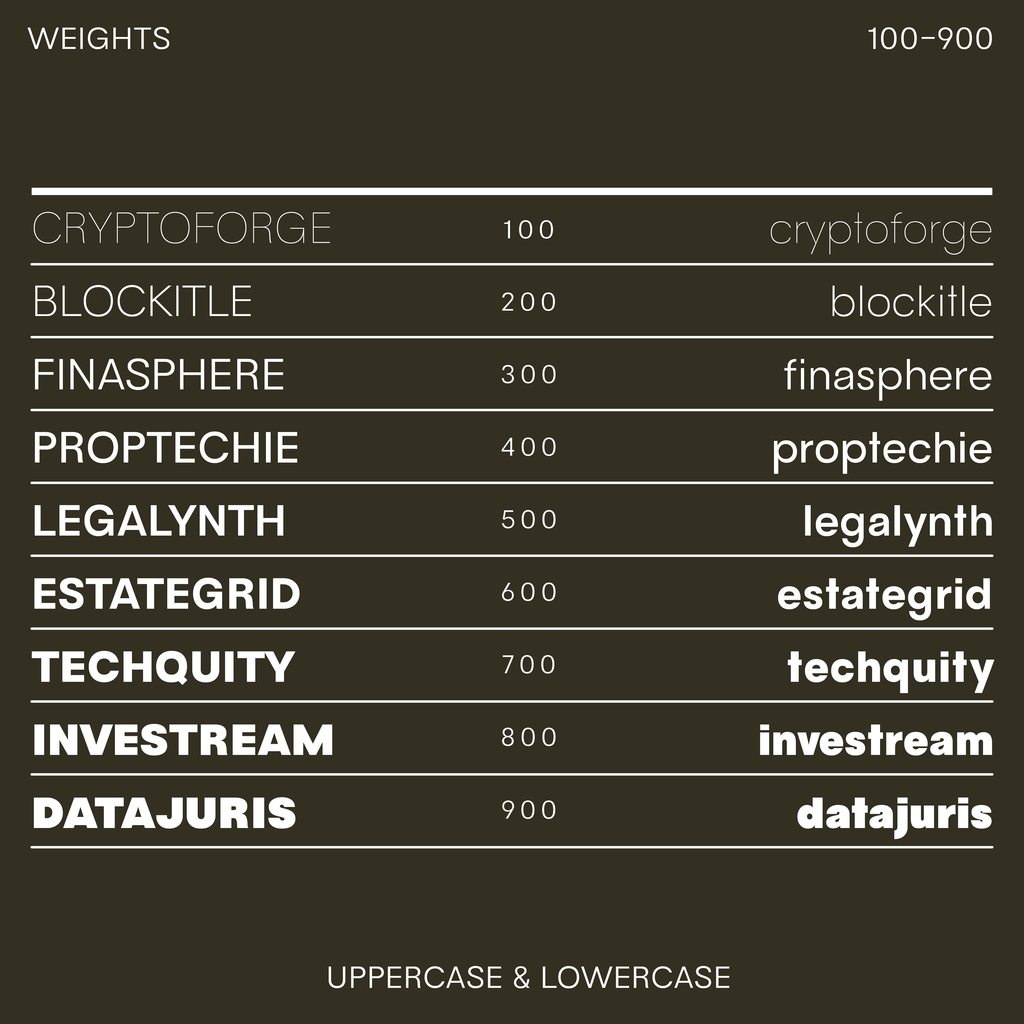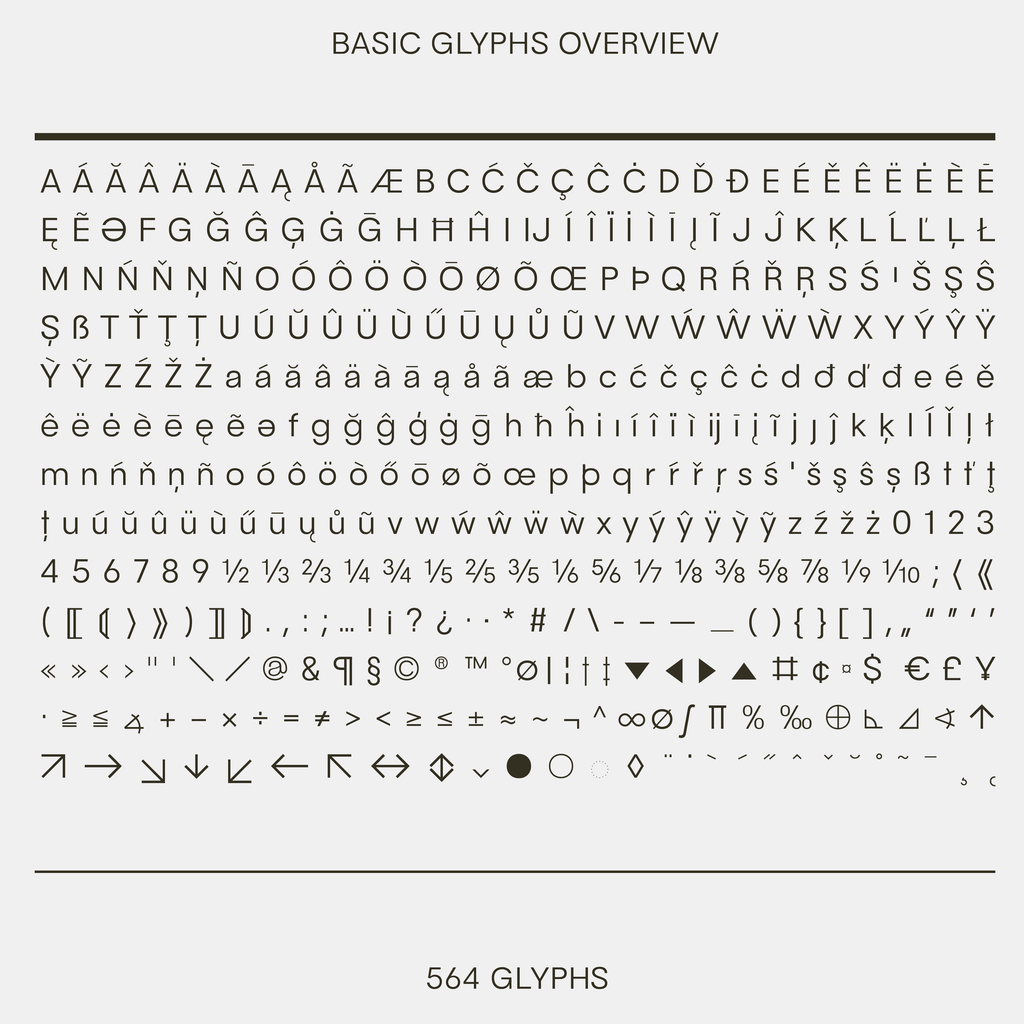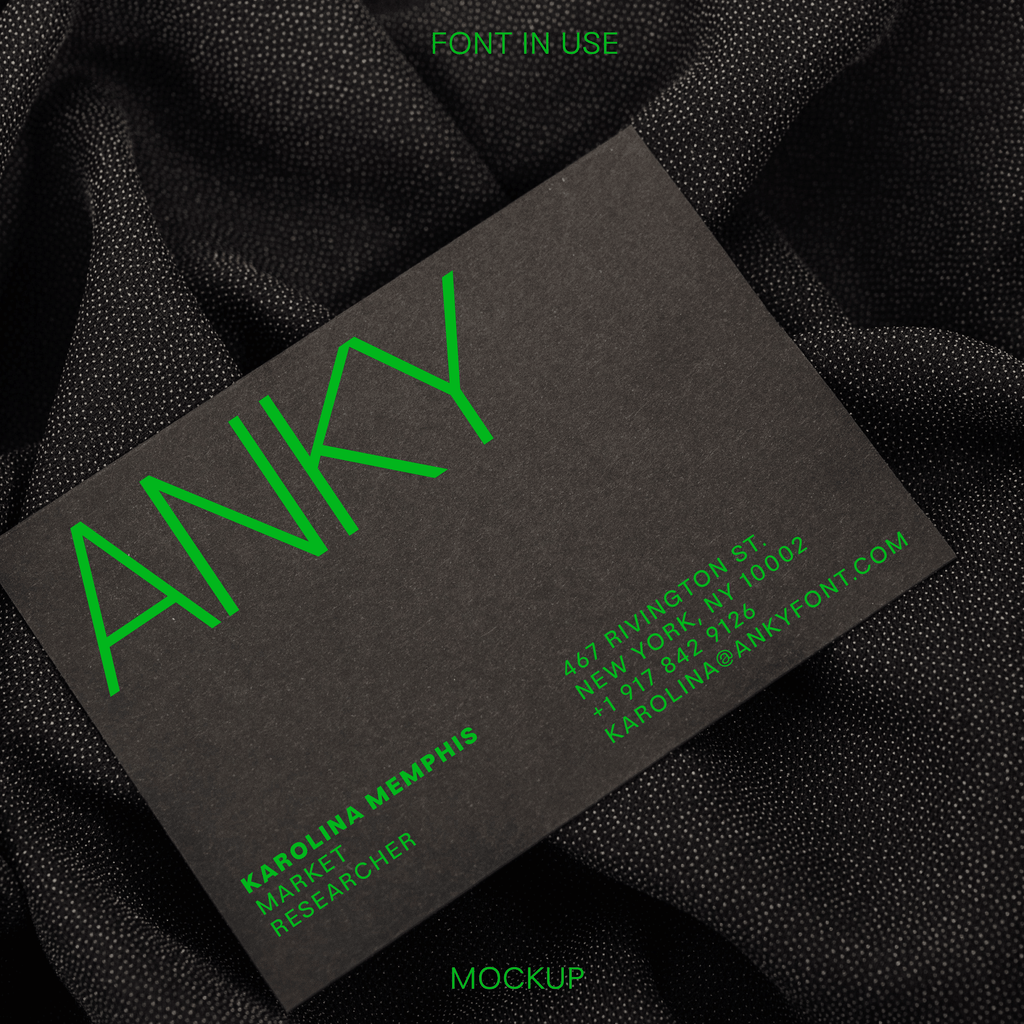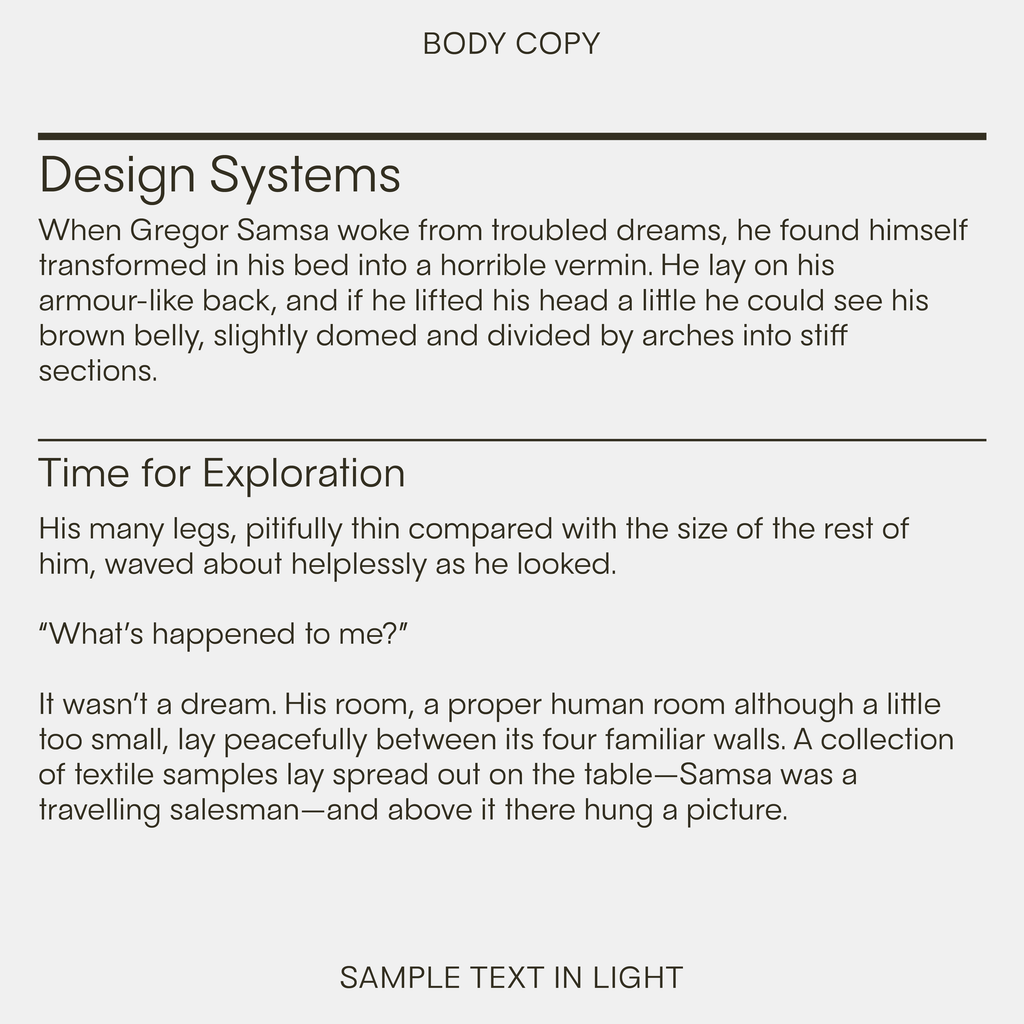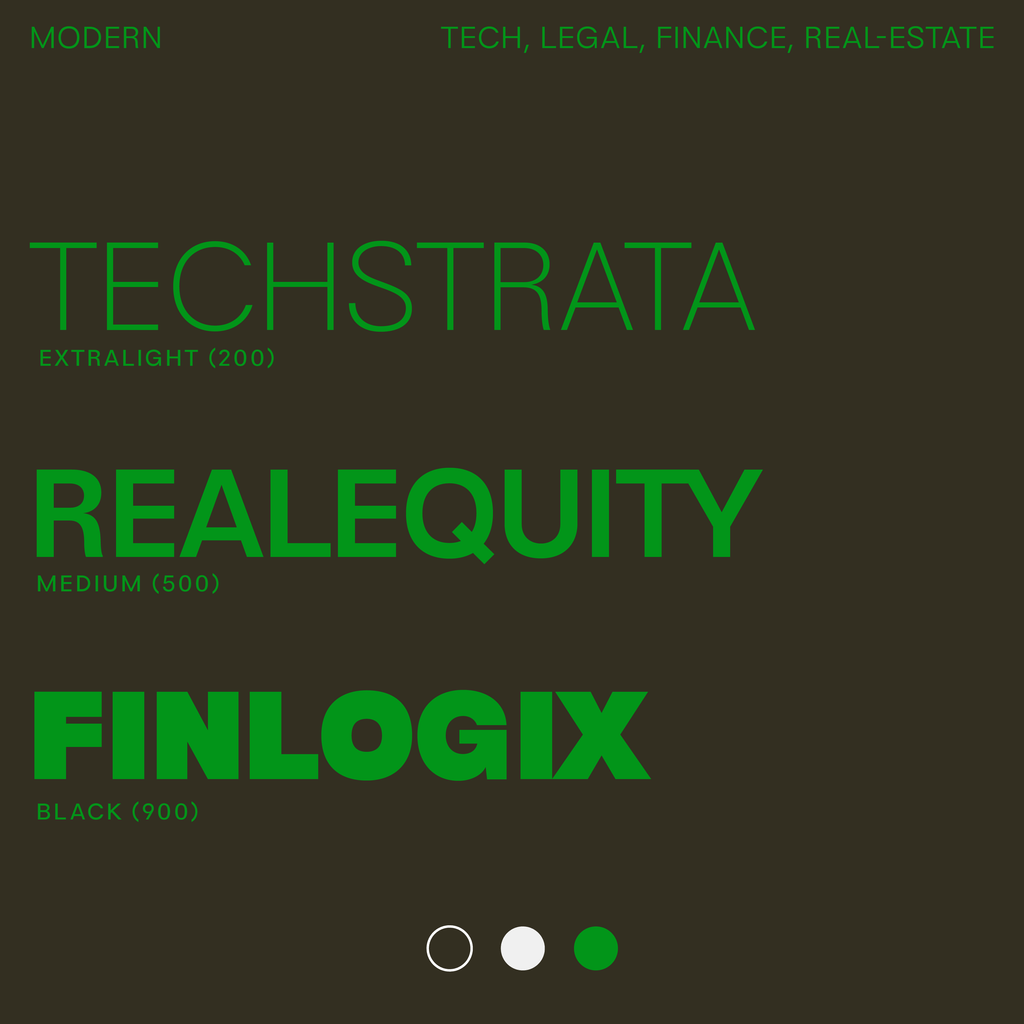
Anky—Clean Geometric Sans Serif Font, Closed Apertures
Anky is a sans-serif font family for a geometric but friendly look. Great for headlines and text. Anky has alternate letters, such as 2 options for G, R, U, and Y, to customize designs. Available in 9 font weights and as a fully family.
Anky in detail
Family
Variable font, weight axis wght 100-950, with 9 named weights: Thin, ExtraLight, Light, Regular, Medium, SemiBold, Bold, ExtraBold, Black. 574 glyphs, 434 characters, 2 stylistic sets.
Languages
Latin, Western European accents, Central European.
Figures
Proportional, tabular, slashed zero.
OpenType features
Case-sensitive punctuation, discretionary ligatures, fractions, standard ligatures, proportional figures, tabular figures, slashed zero.
Ligatures
On by default: ff, ffl, tt. Discretionary, switched on by the designer: rt.